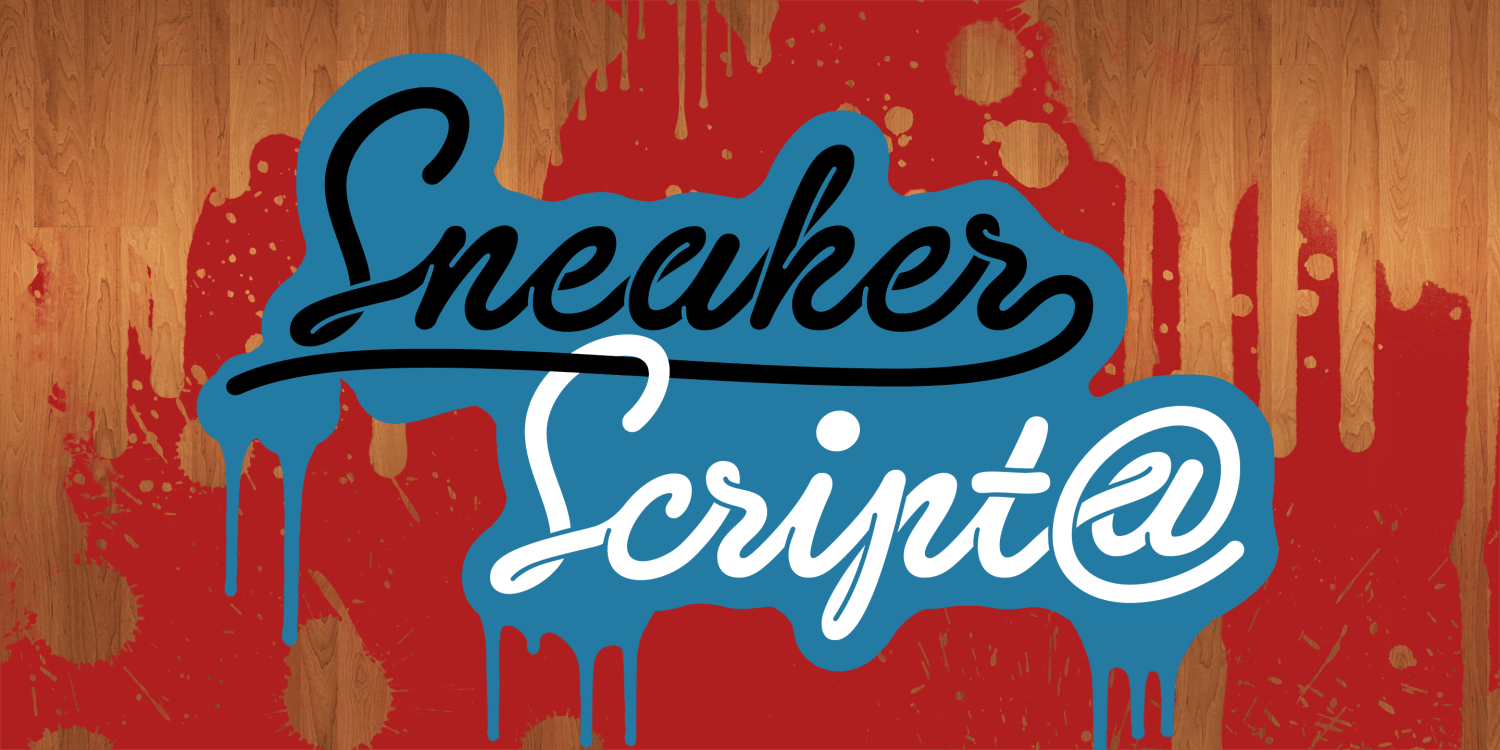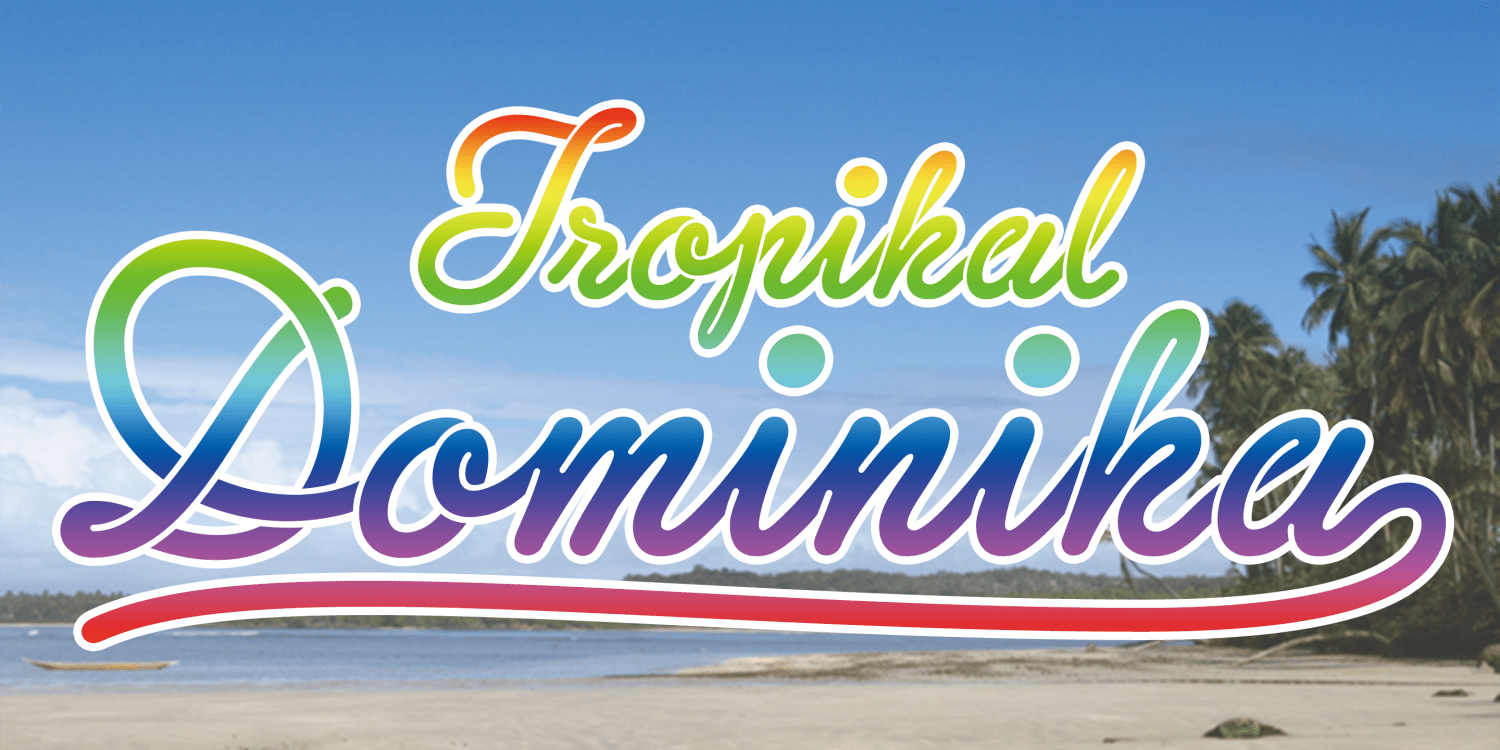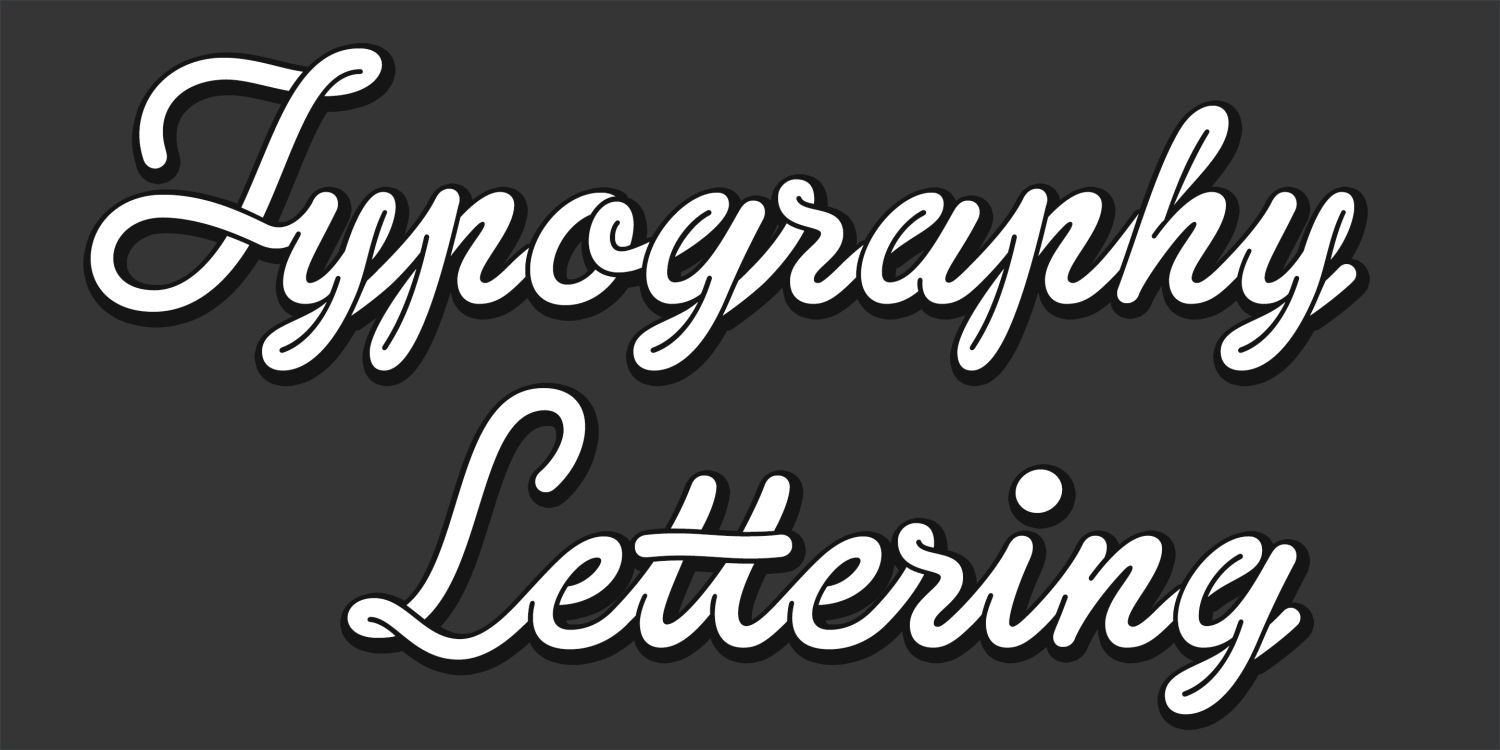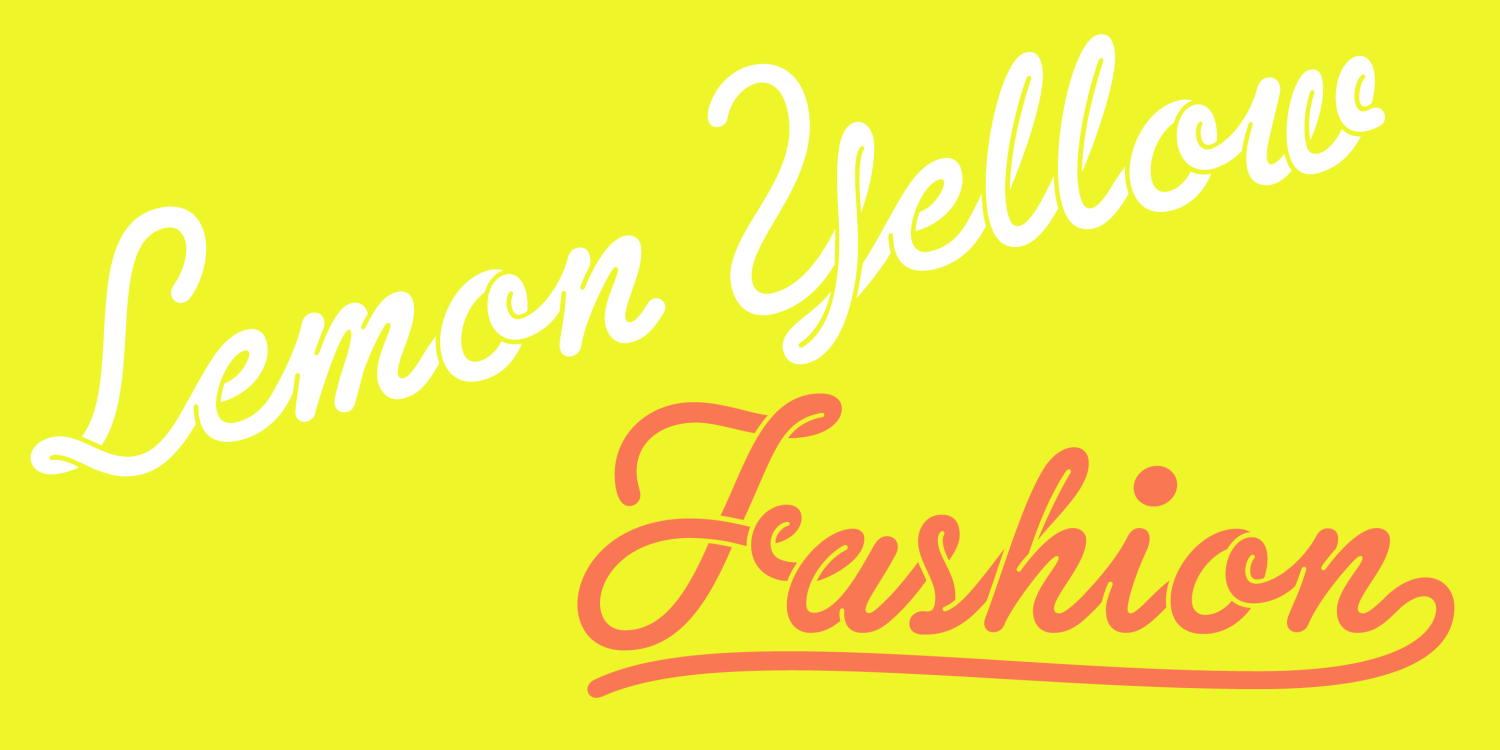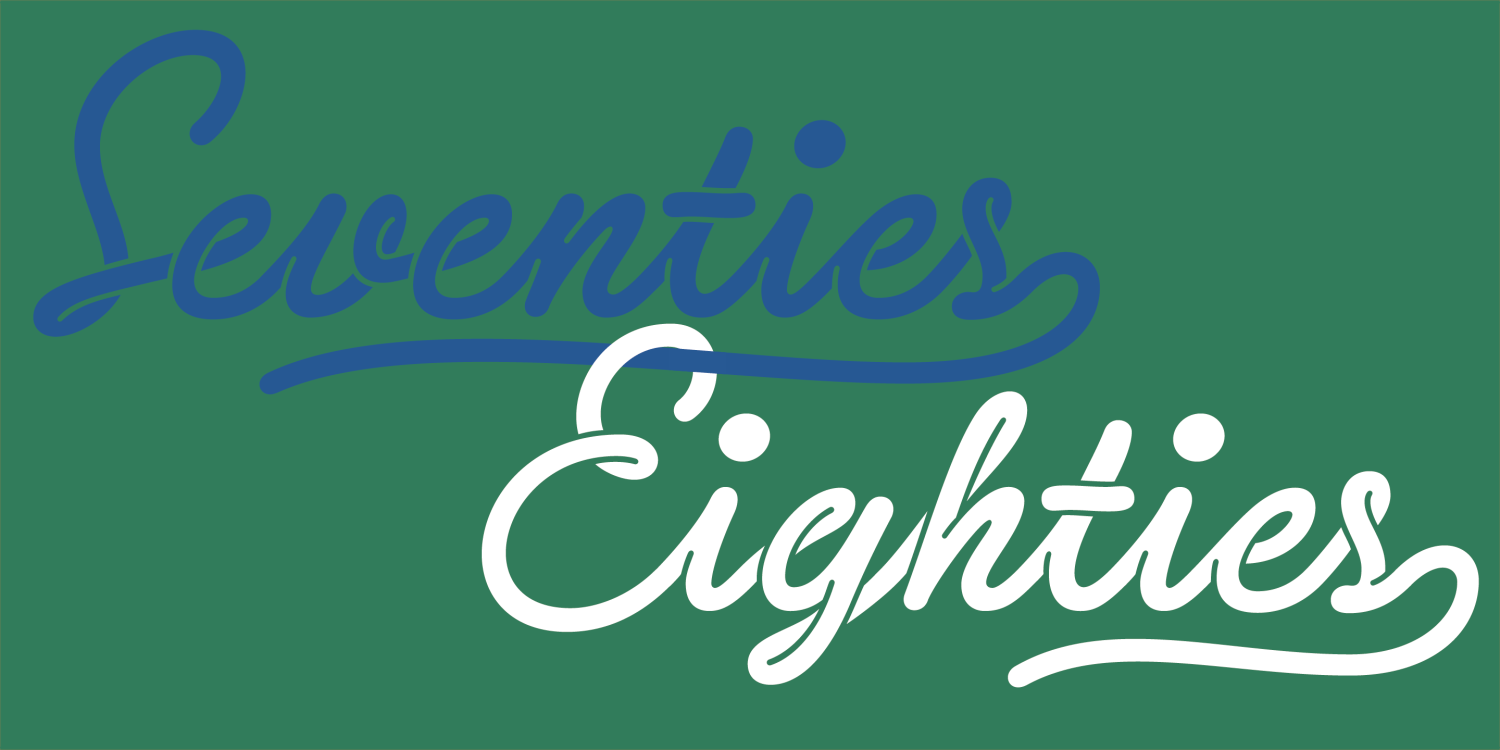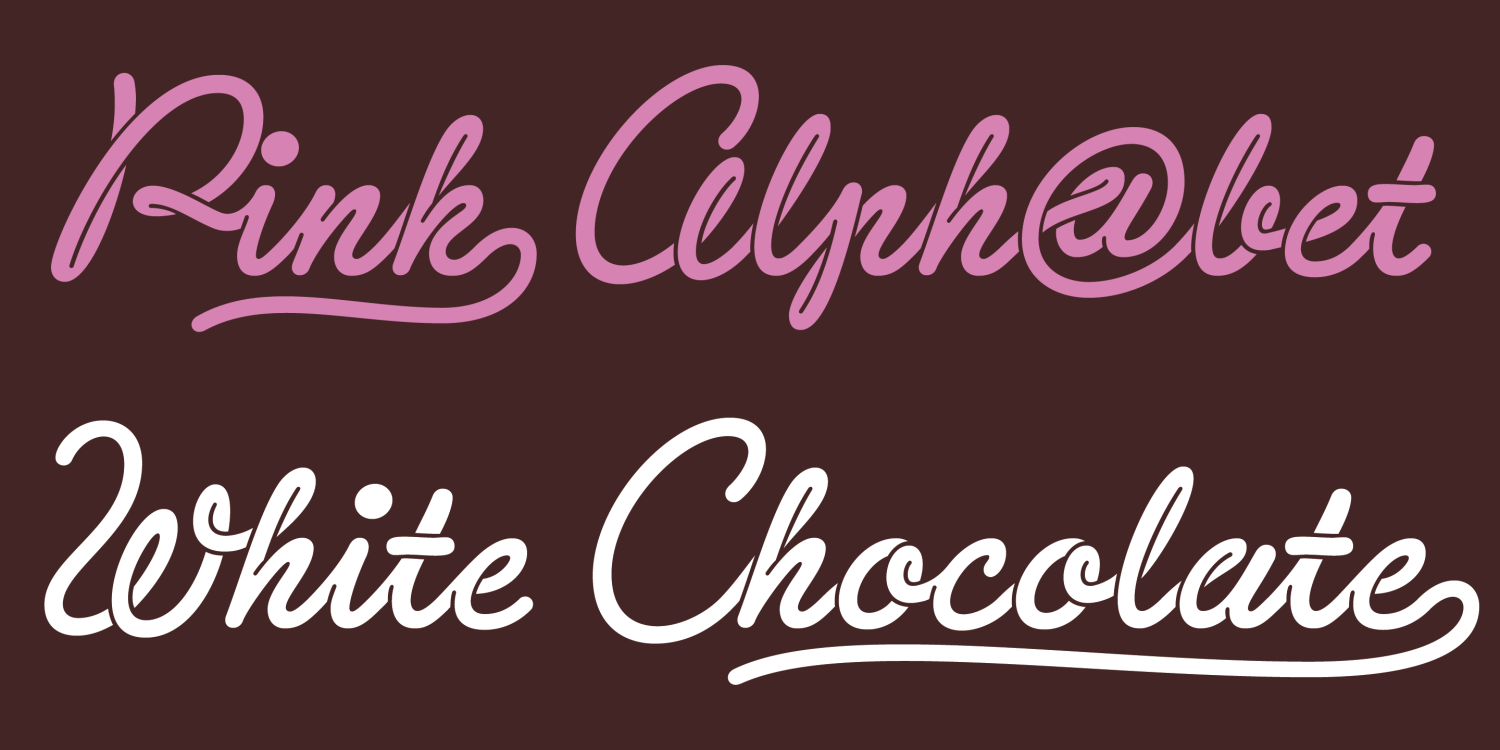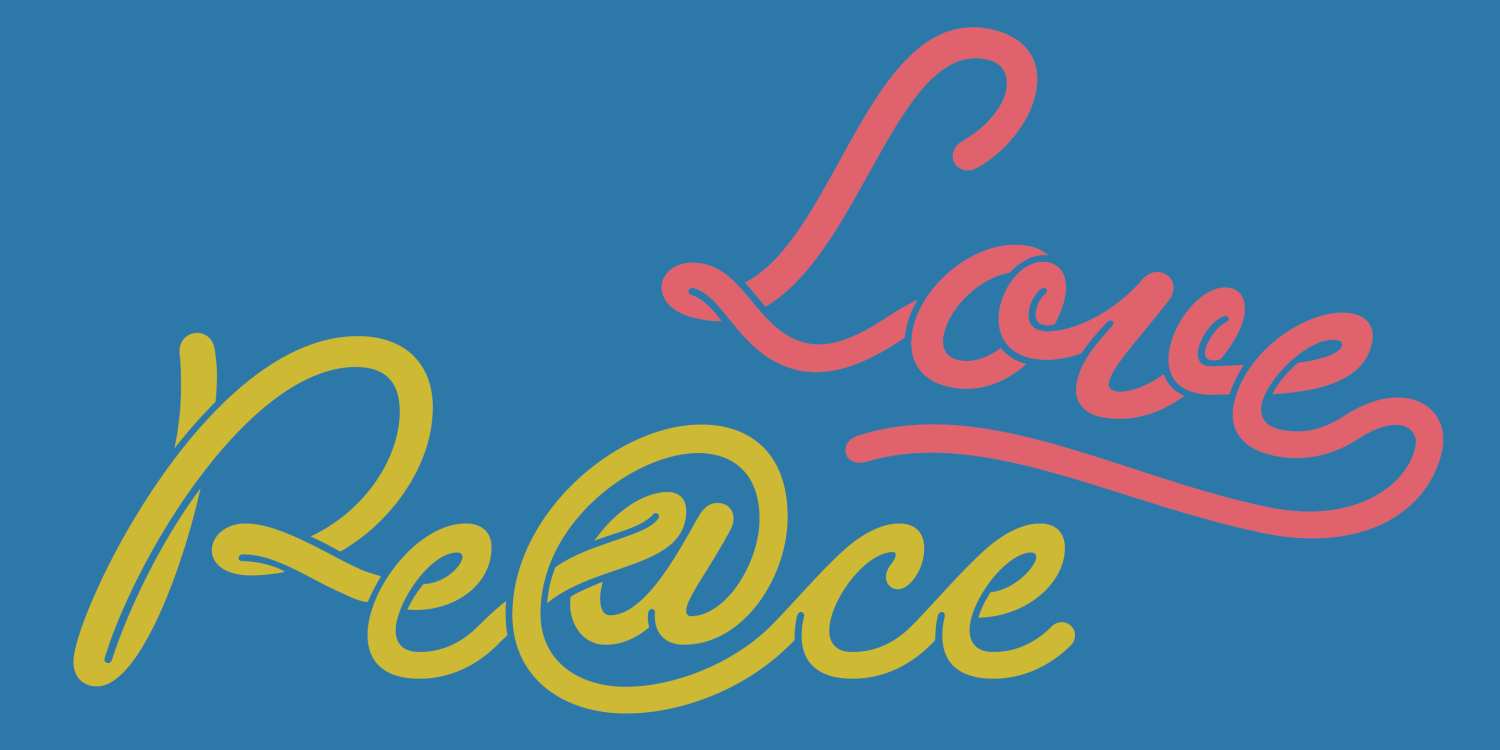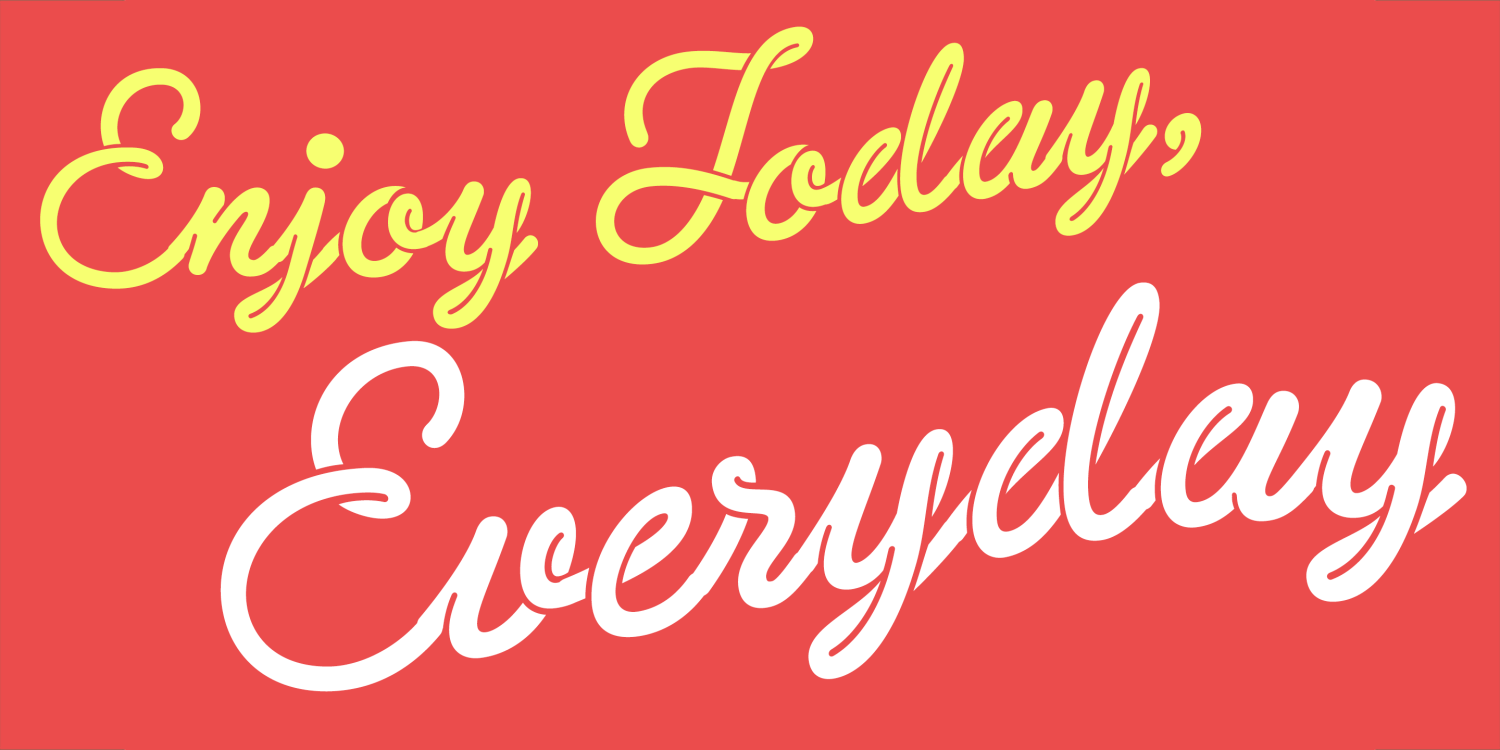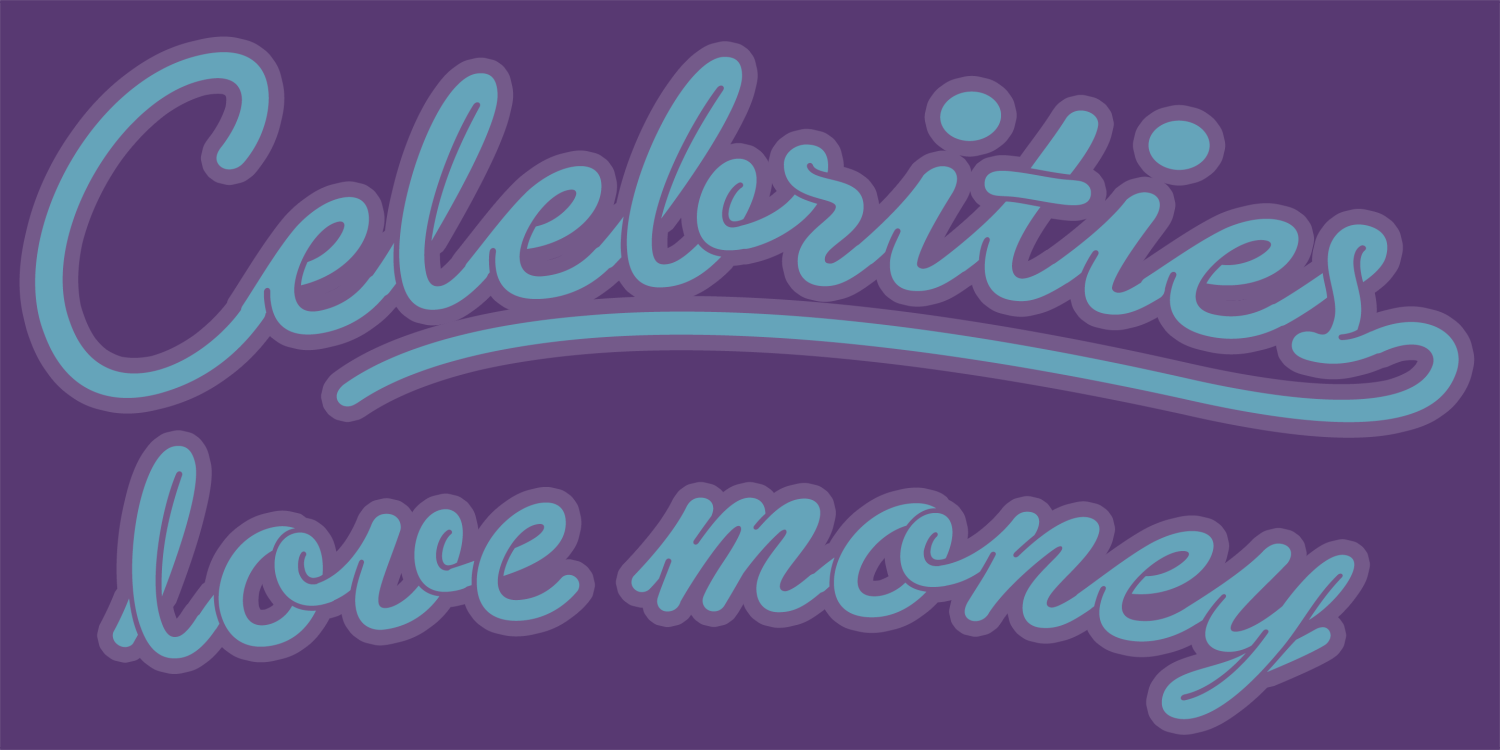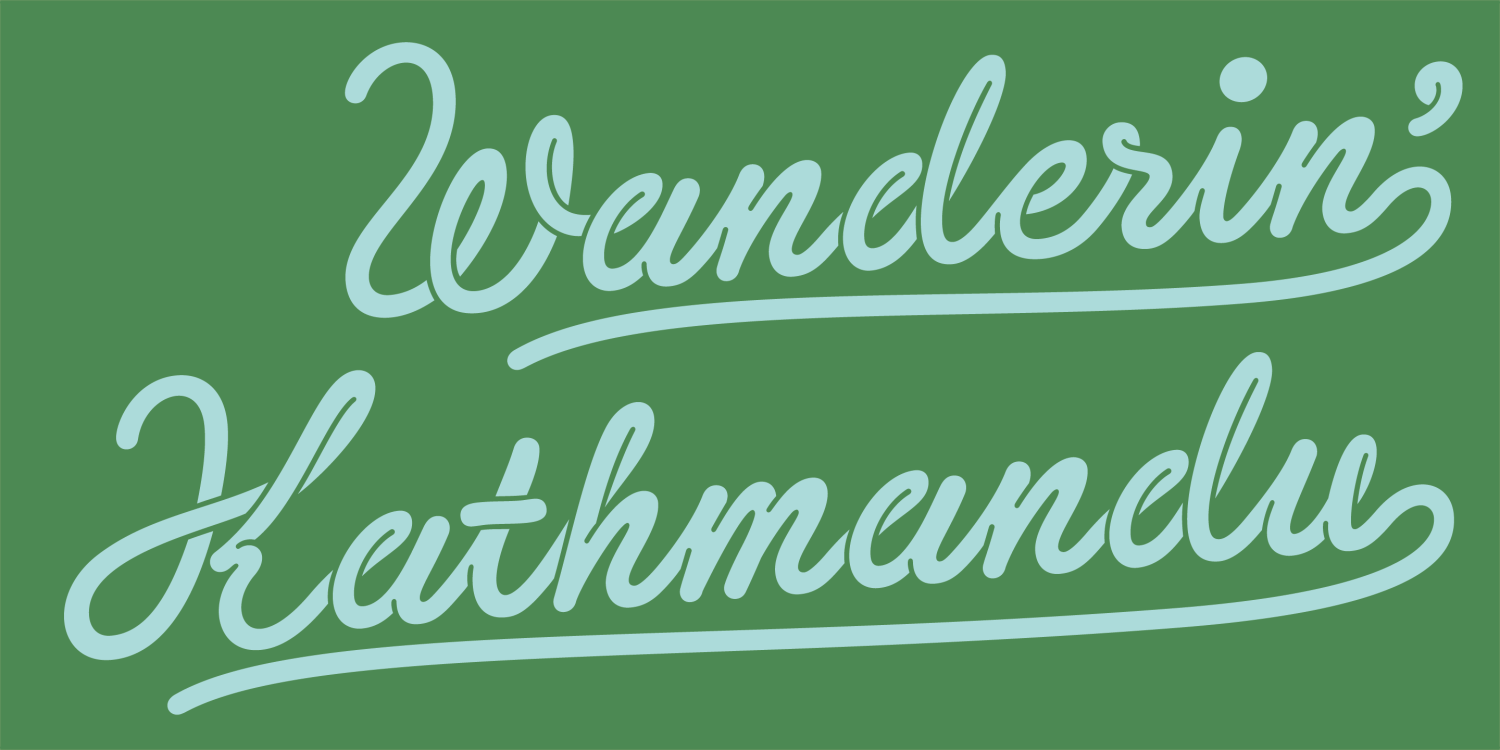
Sneaker Script
Font Family by Dharma Type
This script loops and swirls like spaghetti, thanks to the power of OpenType alternates.
Its flowing, retro charm evokes the spirit of the ’60s and ’70s, bringing back the energy and style of your younger days.